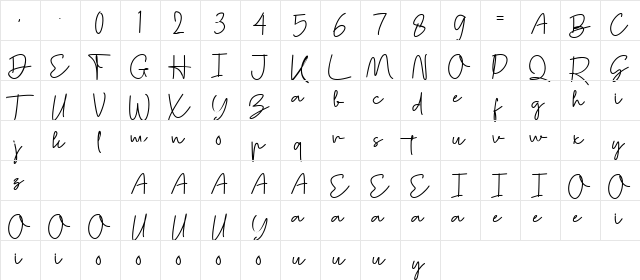
Callien Pooh Regular
Design Context for Callien Pooh Typeface
Callien Pooh is a composed and adaptable typeface that performs quietly and consistently across a wide range of design contexts.